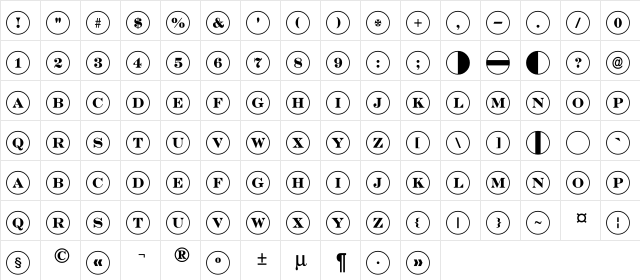
a_DiscoSerifOvl Regular
Design Context for a_DiscoSerifOvl Typeface
a_DiscoSerifOvl carries the refined structure of traditional serif typography, with bracketed terminals and considered proportions that communicate credibility and craft.